Check out our compilation of the top ten fonts that will be very popular among graphic designers in 2024.
Typography and type design are constantly changing and evolving. Some trends fade away and some last for a long time. We have carefully selected the top ten best fonts for 2024 based on current and future trends. Some of these fonts may be familiar to our regular readers from our reviews. We appreciate your feedback very much! It helps us to know what is popular right now and to anticipate what will be the next trends in typeface design. Our list of the ten best fonts for 2024 features a mix of classics as well as new typefaces and high-quality font families from some of the best type designers and font foundries in the world.
10. Maison Neue Superfamily
The original Maison typeface family has undergone a remarkable transformation in the Maison Neue superfamily, designed by Timo Gaessner and published by Milieu Grotesque. This review examines the details of Maison Neue, revealing its design principles, structure, style features, and the wide variety of styles within this superfamily.
9. Thistails Font Duo
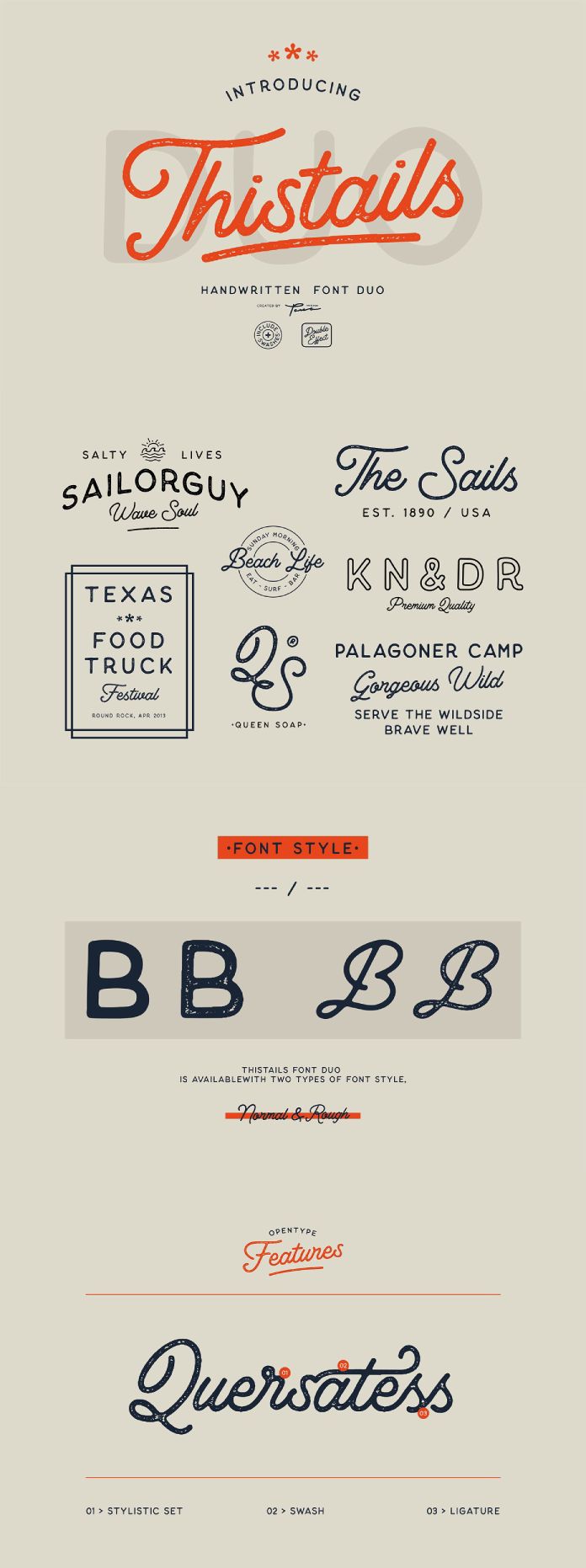
Thistails is a font duo that combines a script and a sans serif typeface, designed and published by Pana Type & Studio. They are ideal for creating modern-vintage designs, such as digital lettering, logo design, t-shirt prints, business cards, or branding materials. They are made with care and accuracy so you can produce amazing visuals for quotes or nature photography like never before!
8. Glycerin Font Family
Glycerin, a modern geo-humanist sans font, showcases the typographic expertise of Roch Modrzejewski from ROHH. Glycerin is a versatile text font family, with well-balanced characters, consistent color, and a charming, authentic italic style. It has great readability and strong character.
7. Marcovaldo Font
The talented Andrea Tartarelli from Foundry Zetafonts created the Marcovaldo font, a stunning example of how historical elegance and modern innovation can blend together. Marcovaldo is a condensed wedge serif typeface that extends the renowned Calvino font family. It is designed for display purposes and has a captivating appearance.
6. Raspberie 90s Font
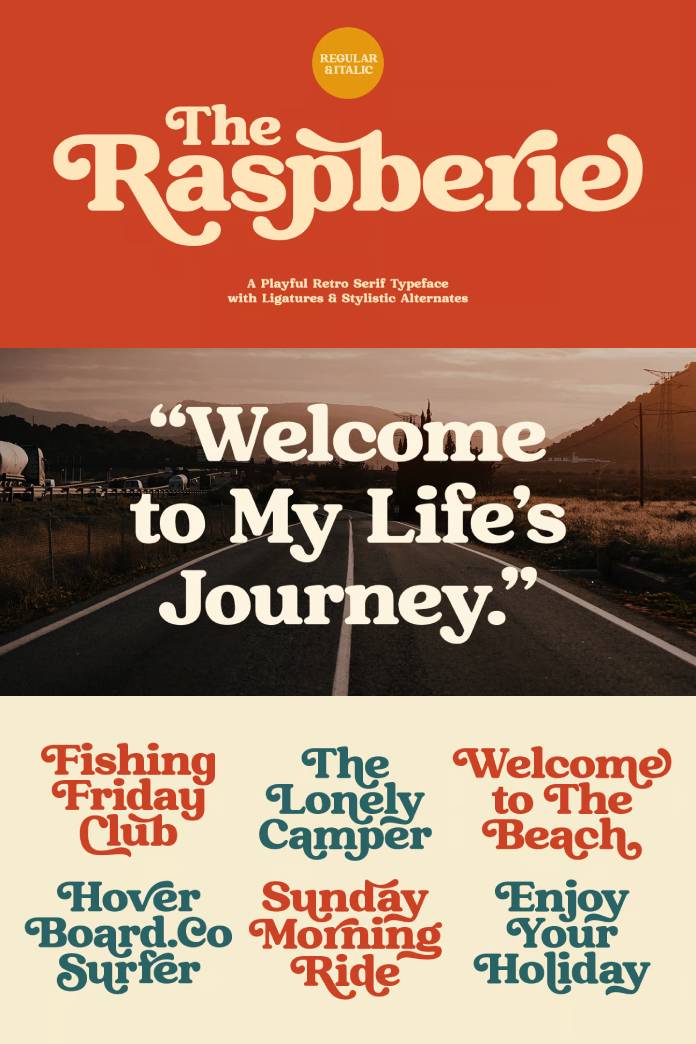
I am a fan of everything nostalgic, so I was eager to explore the Raspberie font by Variatype, a typeface that evokes the classic retro design. This font is designed with care and passion, and it reflects the style of the 90s, offering a wonderful journey to the past. Raspberie is a versatile typeface that can be used for various media applications, such as poster design, graphic design, logotype, packaging design, and branding. It is a useful font for any designer who wants to create a retro look.
5. Brutalista Font Family
Brutalista is a sans-serif font family with 28 styles, designed by Jorge Cisterna and published by the Latinotype font foundry. It is a geometric typeface that draws inspiration from the brutalist architectural style. The Brutalista font family has a clean style that suits a variety of graphic design projects. The typeface is based on grotesque and neo-grotesque sources from the early twentieth century but with a more contemporary touch. Brutalista has a medium x-height, clear counter forms, and low contrast, which makes it versatile and functional. To find out more about this beautiful font family, please follow this link.
4. Fifty Fifty Font
The Fifty Fifty serif font, created by Up Up Creative, has a regular and italic version. It has gently smooth curves and more than 100 ligatures. You can use the Fifty Fifty font for various projects, such as headlines, editorial design, monograms, branding, logotypes, and poster designs. It has about 700 glyphs and 115 standard and discretionary ligatures. It also has character variants and stylistic sets as additional OpenType features. The Fifty Fifty font supports multiple languages and currency symbols.
3. TT Travels Next Font Family
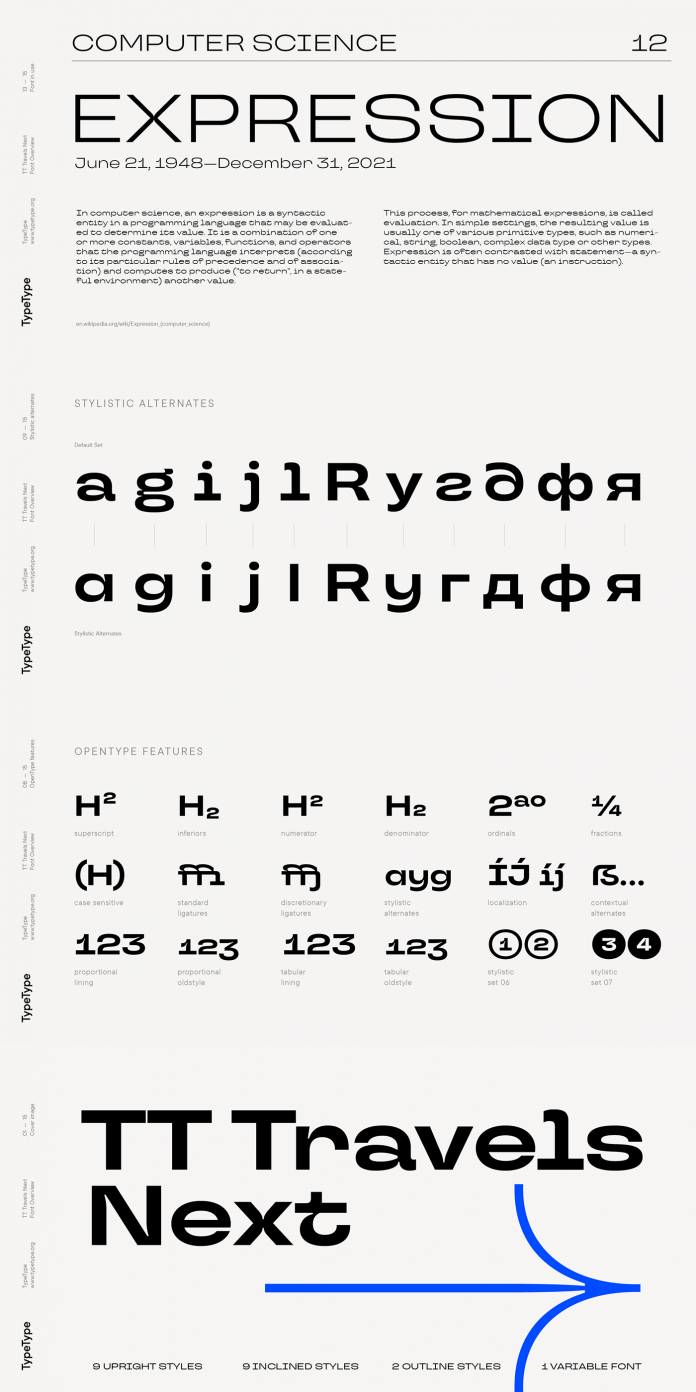
TT Travels Next, designed by Kseniya Karataeva and the TypeType team, is a more radical display version of the popular TT Travels font family. They work well together as complementary families. The TT Travels Next font family has a wide display sans serif typeface with distinctive features.
2. Ferryman Font Family
Fonts play a crucial role in visual communication, creating the mood and personality of the message they deliver. One font family that catches the eye in the modern scene is Ferryman, a work by Felix Braden of the acclaimed foundry Floodfonts. Ferryman revives the classic blackletter script, giving it contemporary readability and versatility, making it appealing to a larger audience.
1. Helvetica Now Variable Font
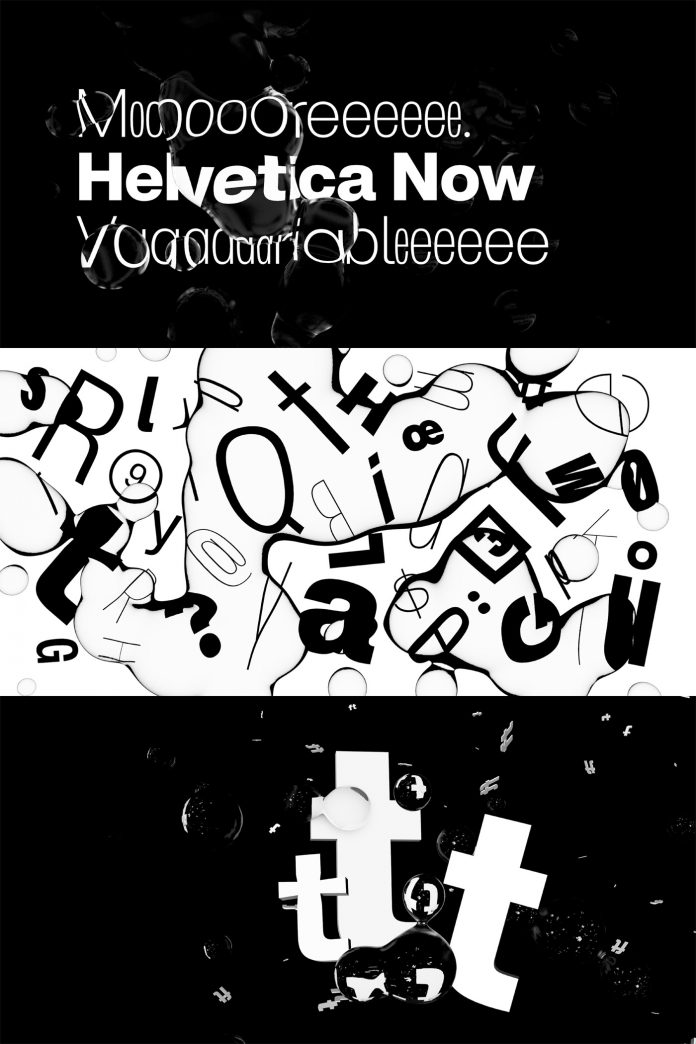
Published by Monotype, Helvetica Now is a font that can fit any purpose. The iconic Helvetica typeface has been completely reworked and refined to meet the needs of modern design and branding. Helvetica Now maintains the typeface’s Swiss principles of clarity, simplicity, and neutrality, while offering you a range of options for your typographic work.
We hope you enjoyed our curated list of the top ten best fonts for 2024. These fonts are suitable for various projects and purposes, from branding to editorial design. If you are looking for more inspiration, you can explore our recommended Fonts category, where you will find a wide range of styles and genres. Update: Check out our big guide of the 50 best fonts based on the top 10 typography trends for 2025.
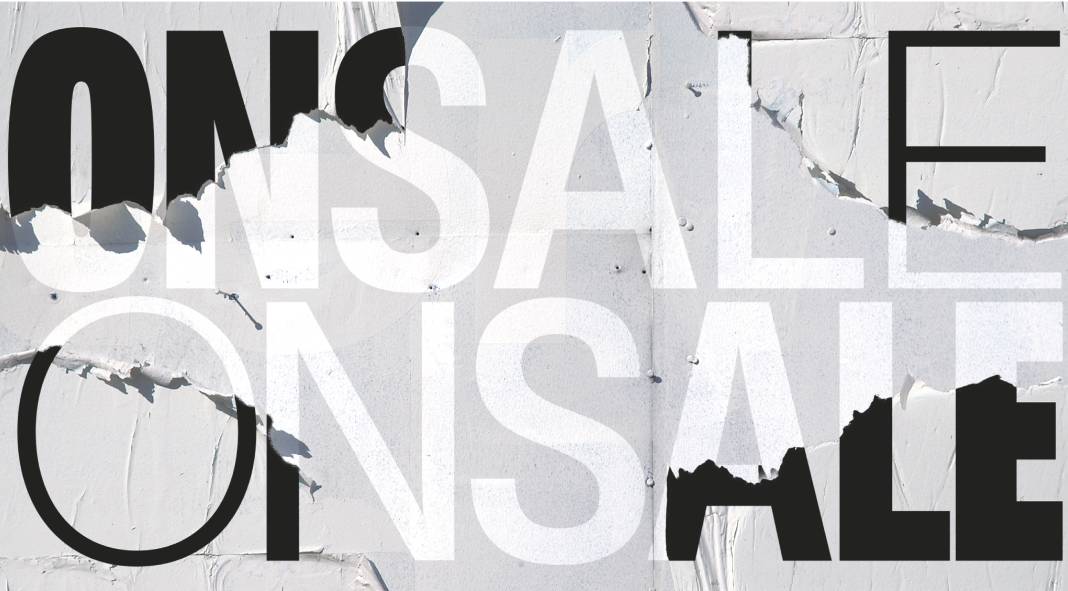
Damn, this Brutalista typeface looks fine.
Marcovaldo is indeed a masterpiece of a typeface. I used this font in several branding projects because it offers a totally unique and sophisticated style.